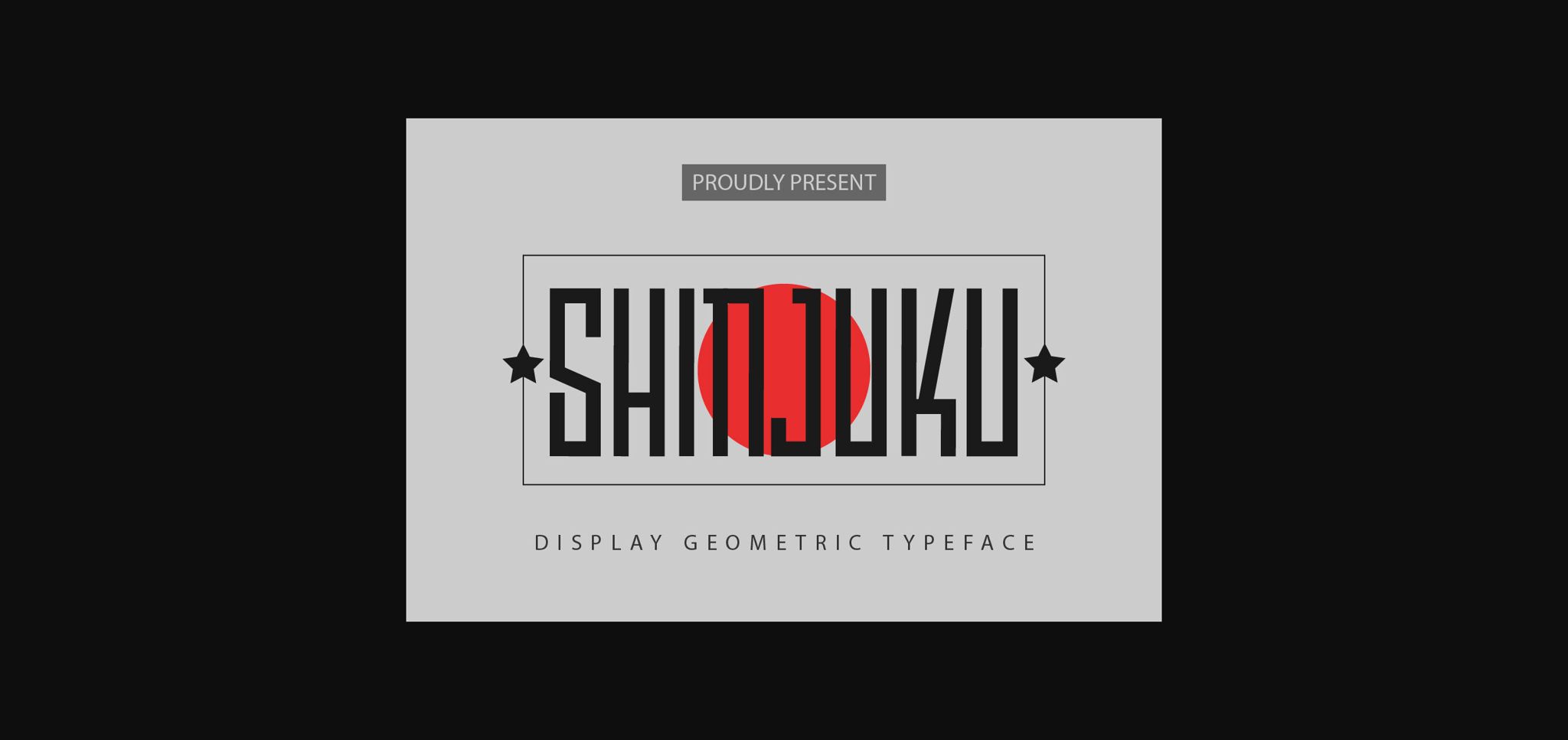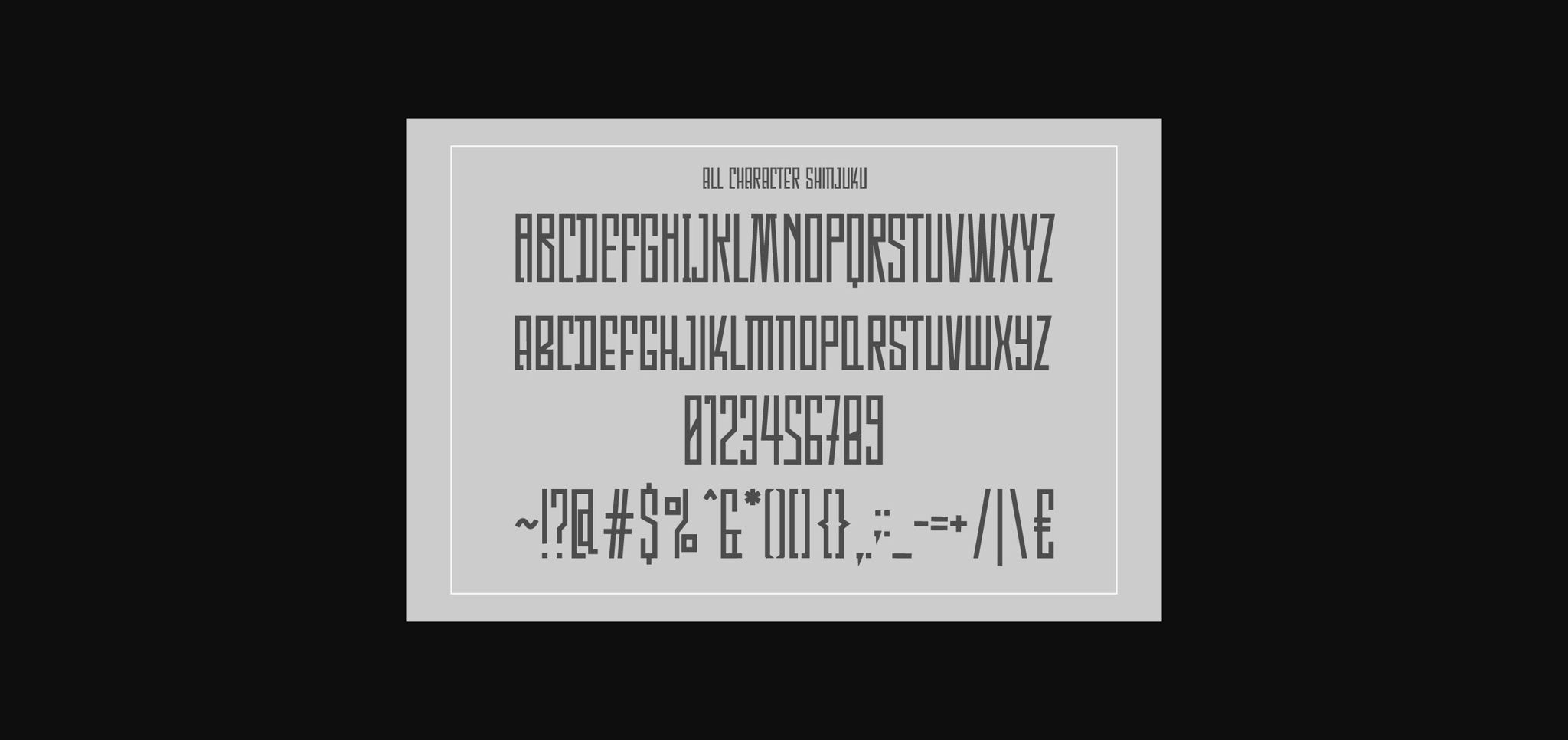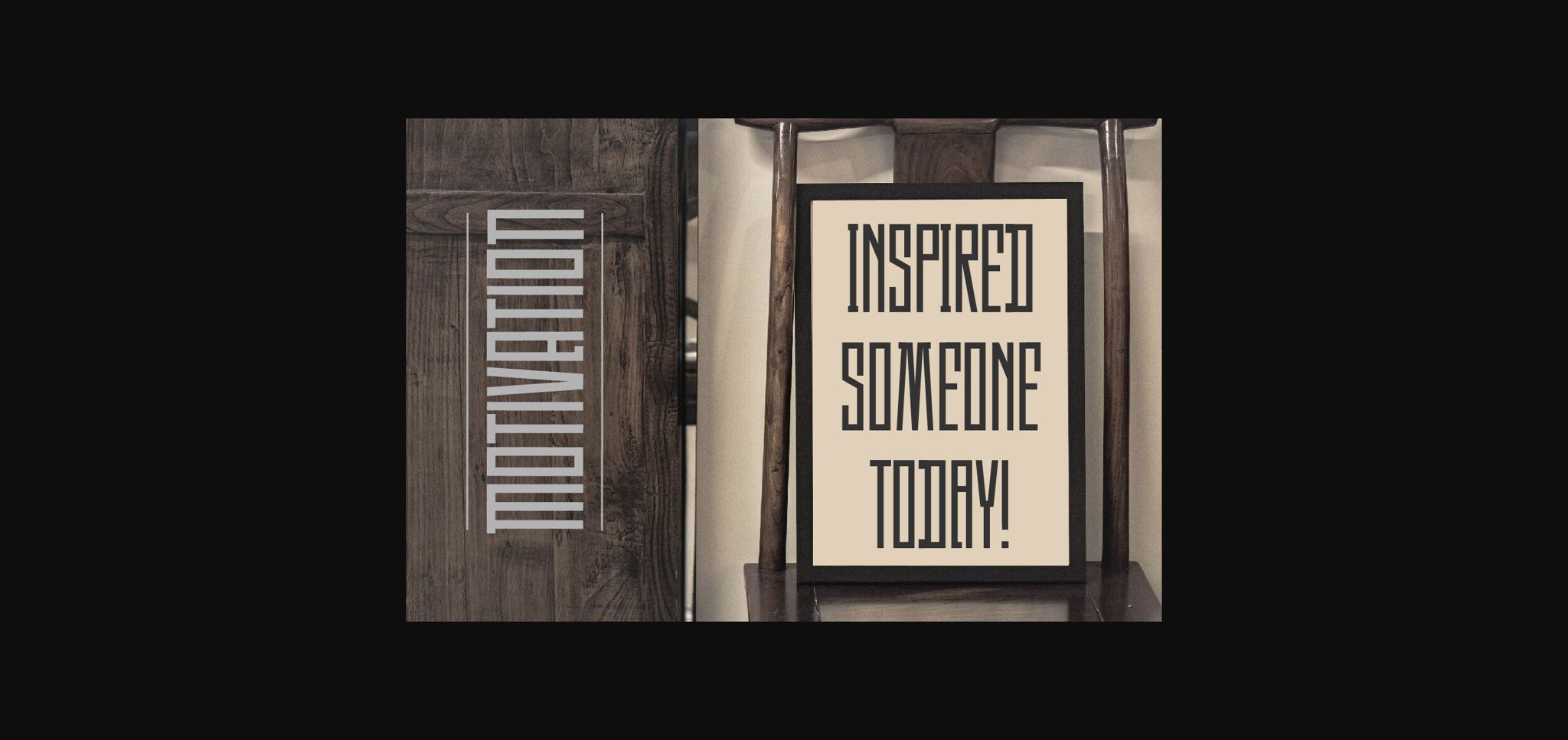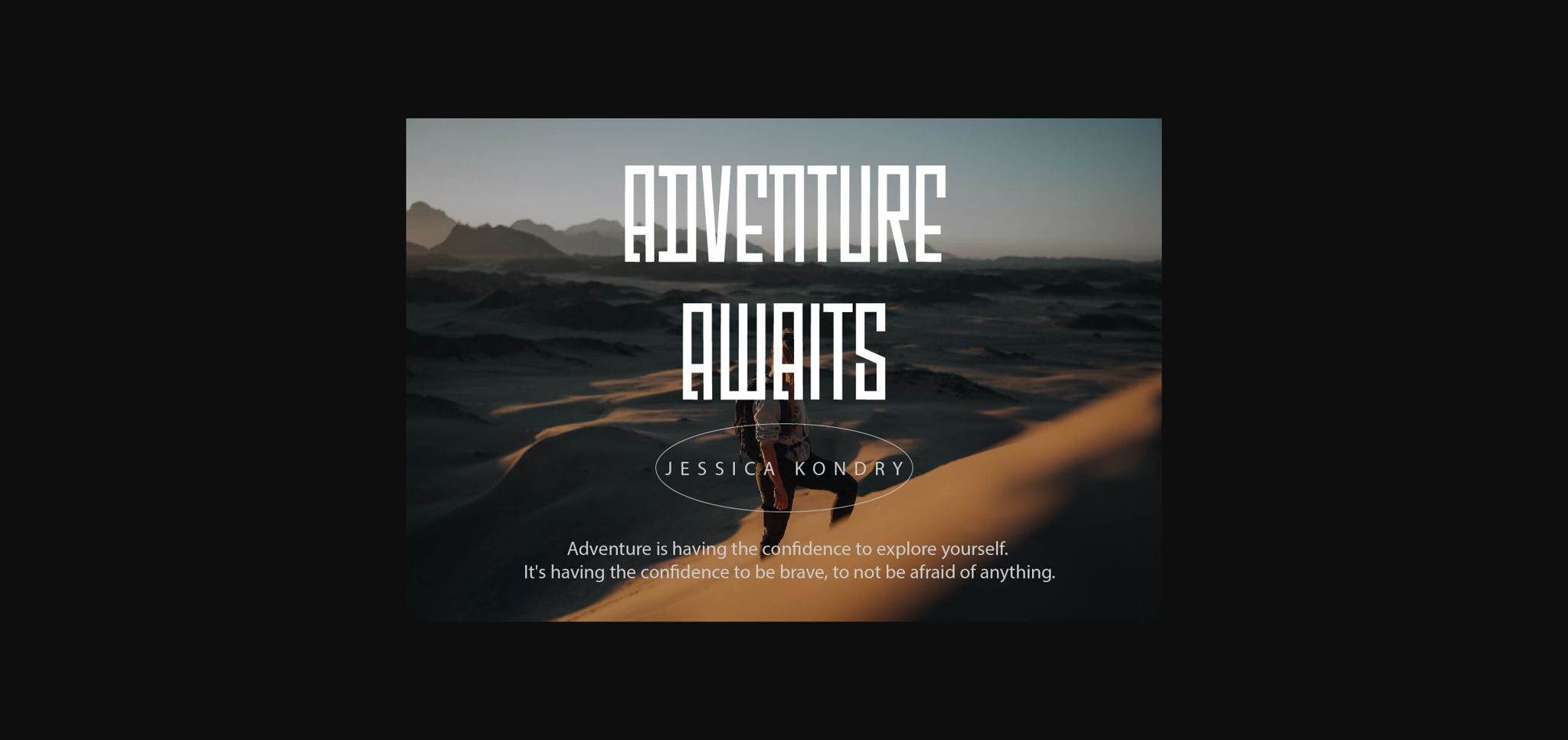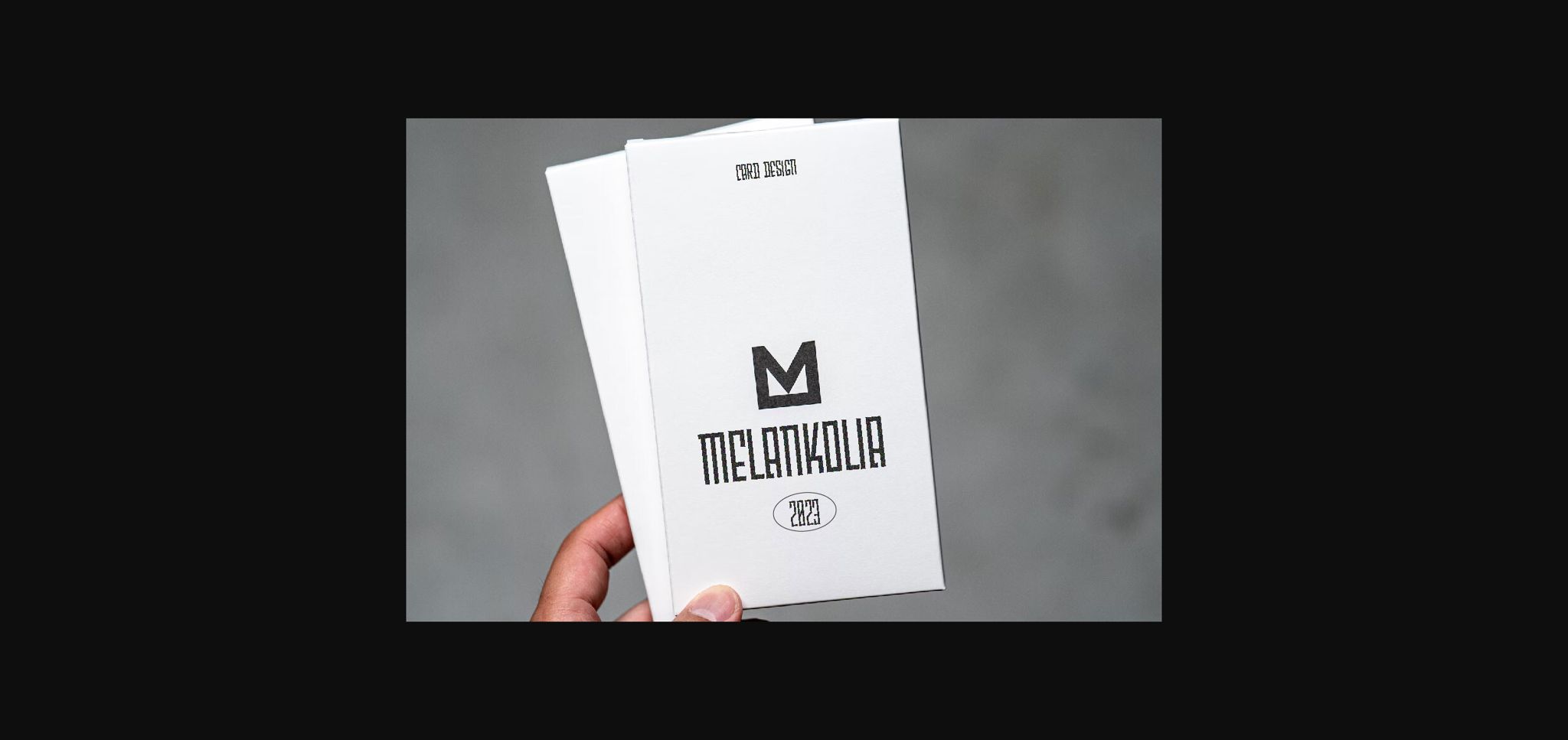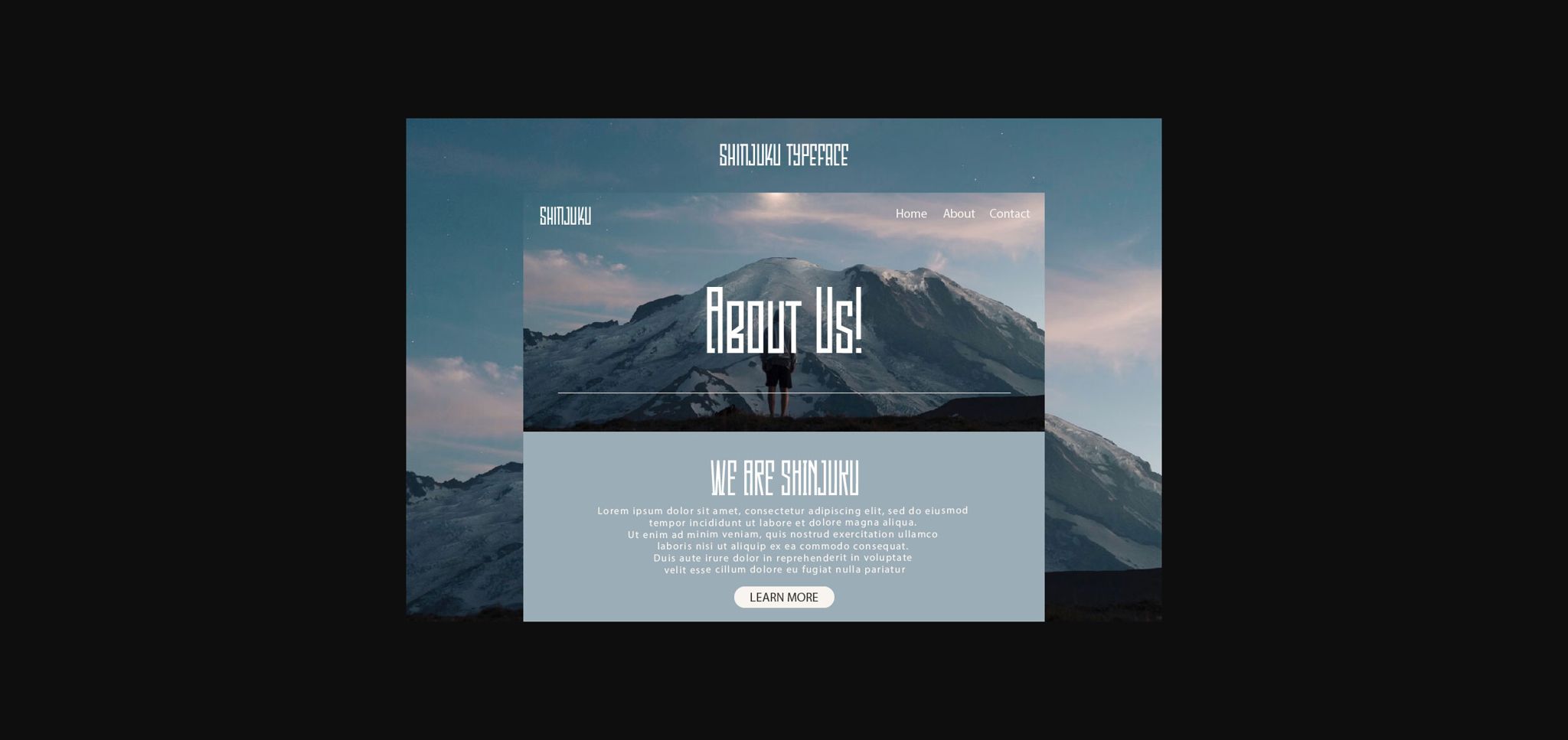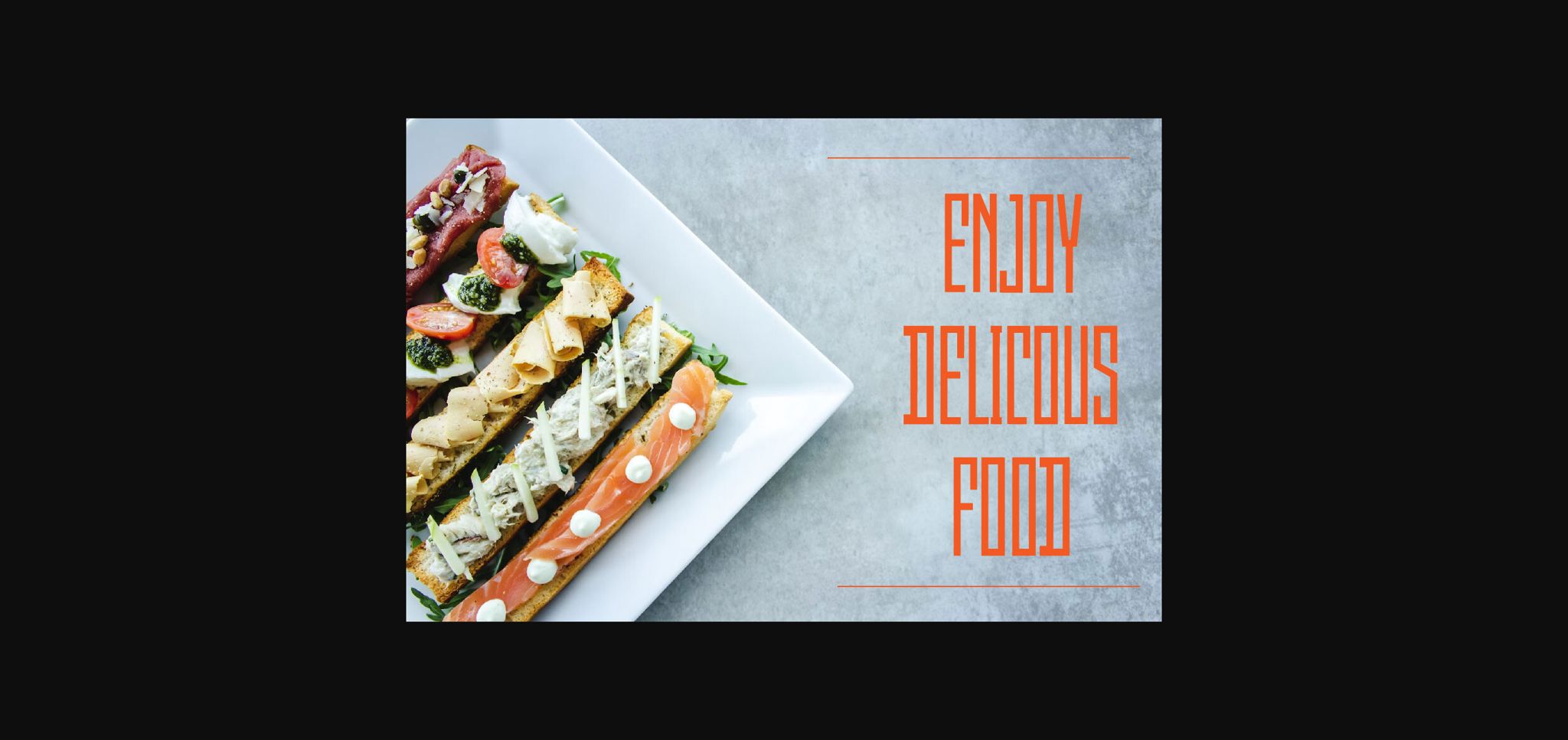
About Shinjuku Font
Introducing Shinjuku – Display Geometric Typeface
A display geometric typeface with a gentle, cool, and manly style. This font is suitable for quotes, headlines, overlays, greeting cards, etc